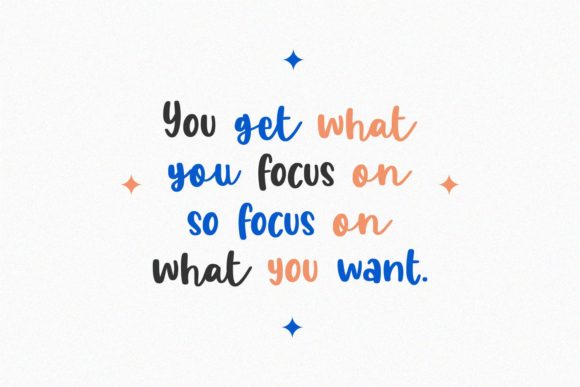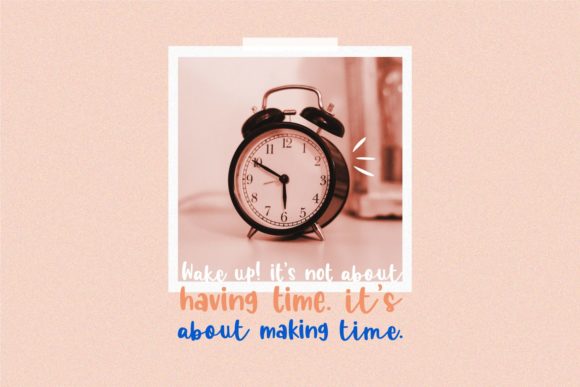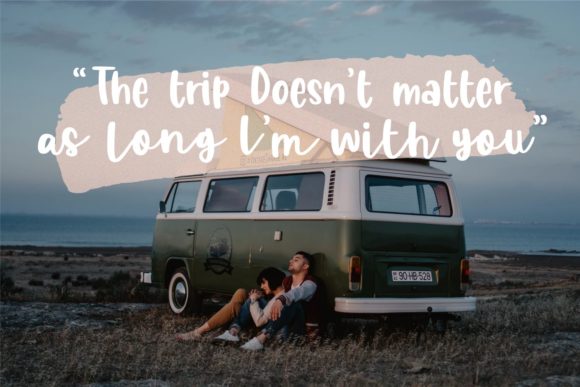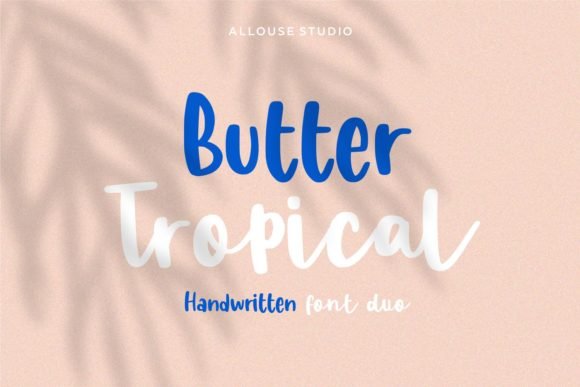
Introduction to Butter Tropical Font
Butter Tropical is a sweet and friendly handwritten font.
Add this trendy and cute font to each of your designs and you will absolutely love the results .
Why Choose Butter Tropical Font?
Butter Tropical Font offers exceptional quality and versatility, making it a valuable addition to your design toolkit. Whether you’re creating for personal projects or commercial use, Butter Tropical Font delivers professional results.